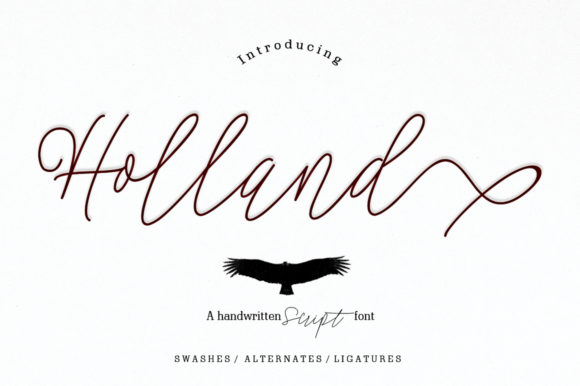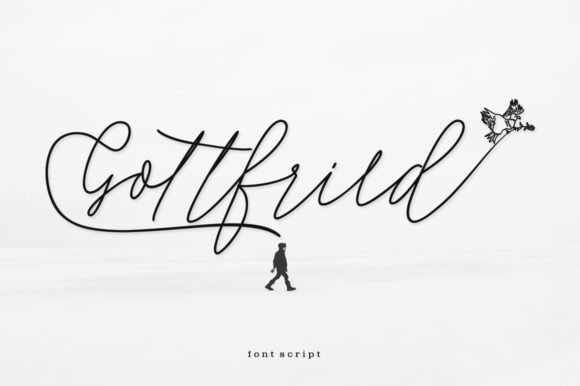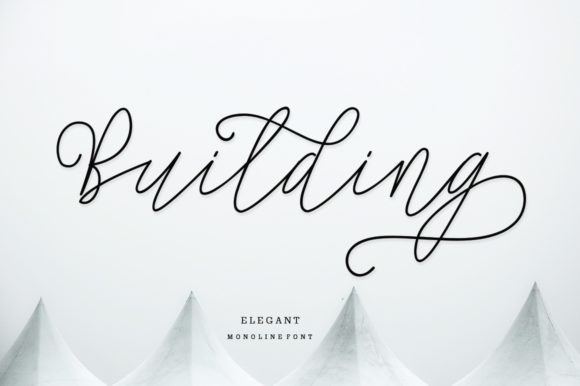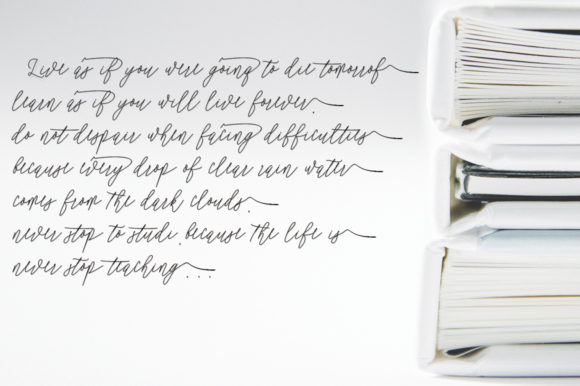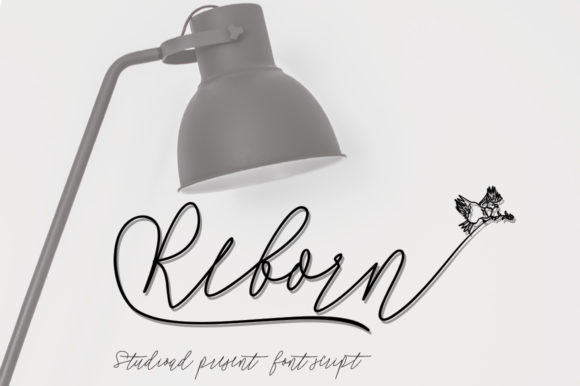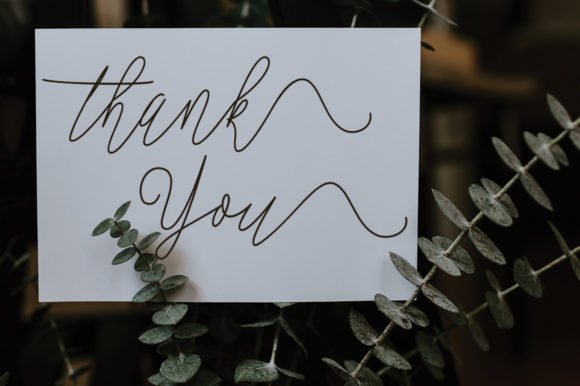
Holland Font
About Holland Font
Inspired by the gorgeous region in the Netherland, Holland is a fantastic script that radiates authenticity! Fall in love with its sweet charm.